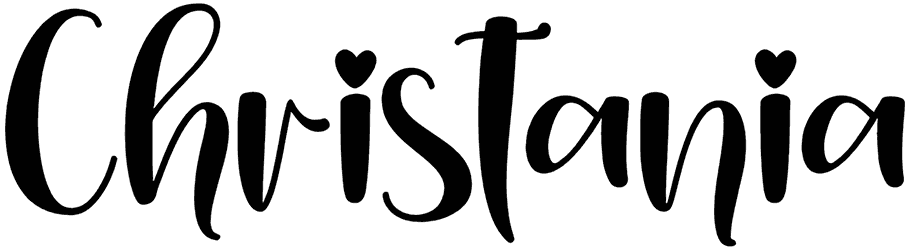
Christania Font
Show your design more romance with our new gorgeous brush font, Christania. It comes with a soft, eye-catching texture that conveys a sense of love and excitement. This love font supports uppercase and lowercase letters,…
Show your design more romance with our new gorgeous brush font, Christania. It comes with a soft, eye-catching texture that conveys a sense of love and excitement. This love font supports uppercase and lowercase letters, numbers, and most punctuation. It will be perfect for product packaging, romance letters, book covers, wedding invitations, and Valentine’s Day projects.